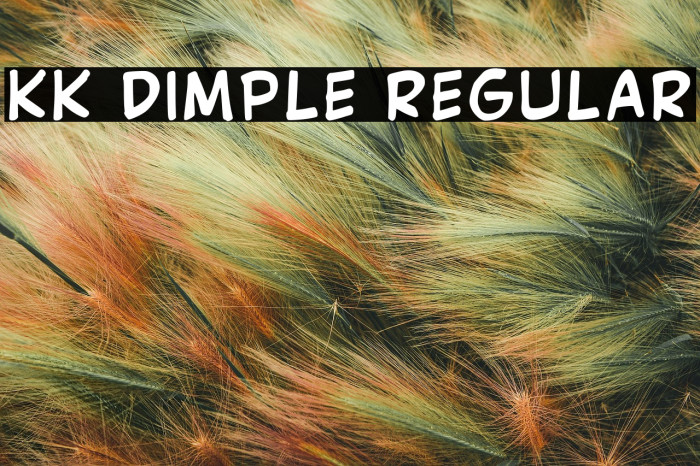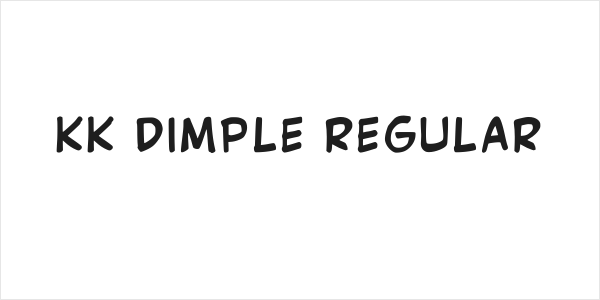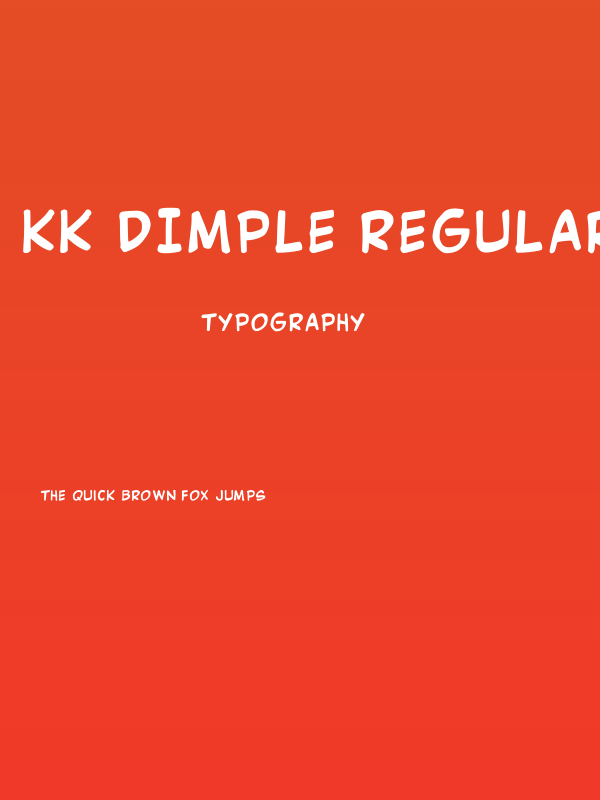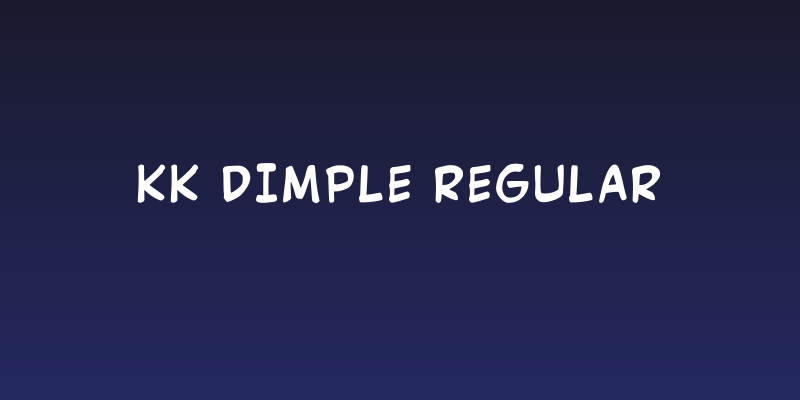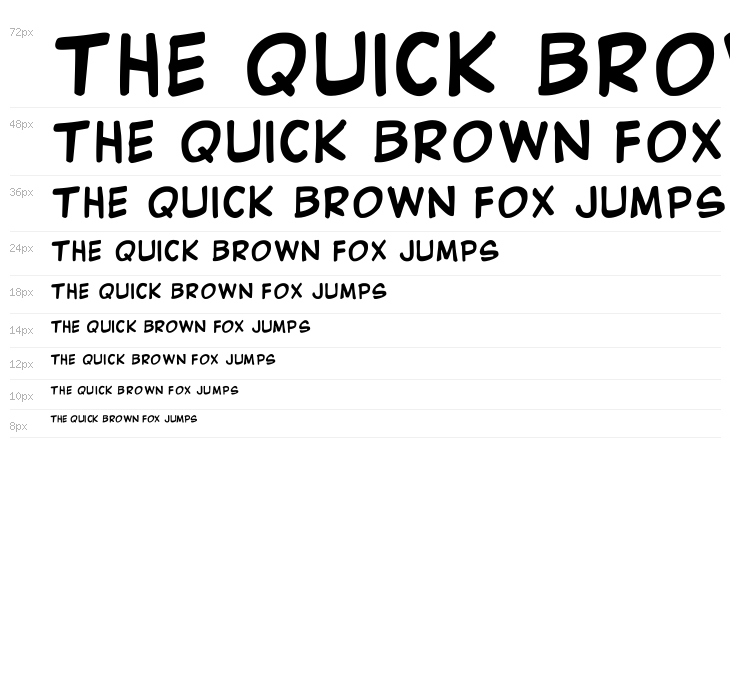
Kk Dimple Regular Font
Kk Dimple Regular Description
This playful and bold font features rounded, slightly irregular characters that give it a friendly and approachable appearance. The letters are thick and have a hand-drawn quality, making them stand out with a unique charm. The overall style is casual and fun, suitable for projects that require a touch of whimsy. The characters are evenly spaced, ensuring readability while maintaining a lively aesthetic. This font is versatile, making it suitable for various creative applications where a lighthearted and informal tone is desired.
| Proposed Projects | Ideal for children's books, playful branding, casual invitations, and creative posters. |